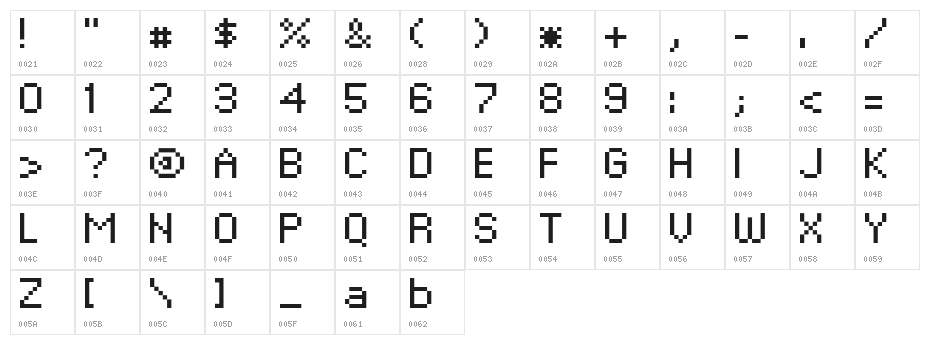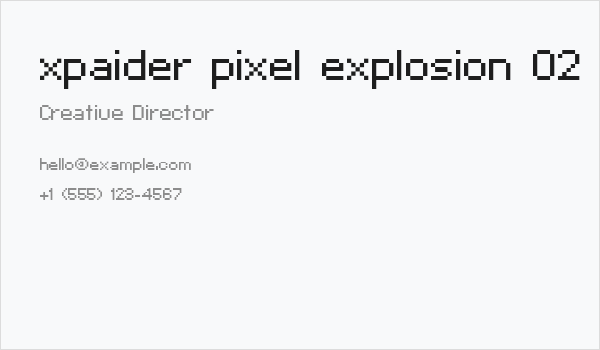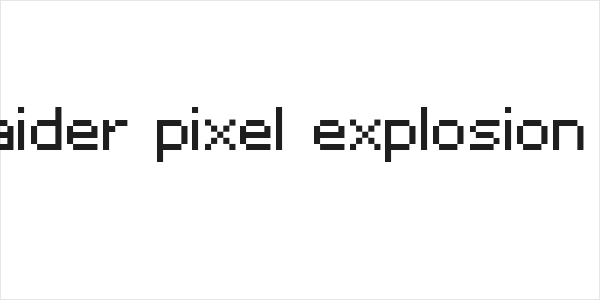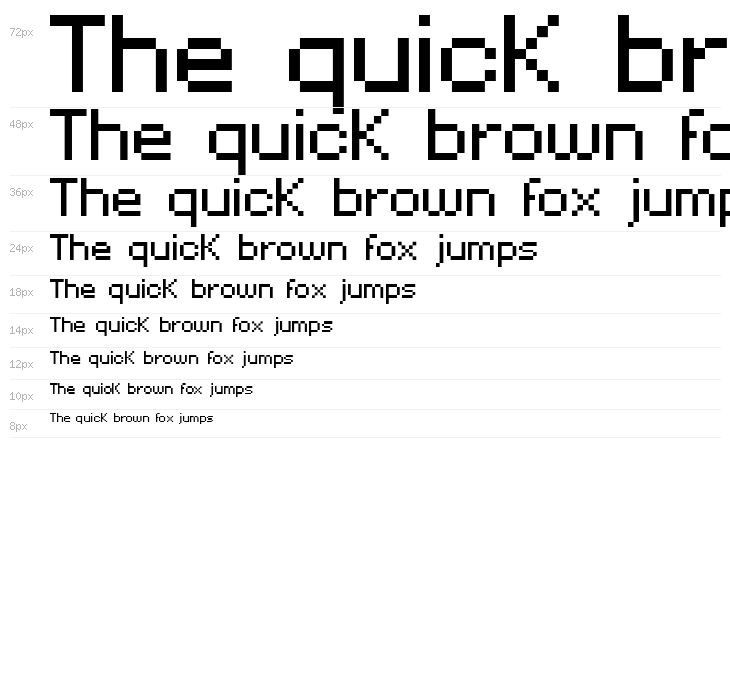
xpaider pixel explosion 02 Font
xpaider pixel explosion 02 Description
This font features a distinct pixelated design, reminiscent of classic video game graphics. Each character is constructed with a grid-like precision, giving it a retro digital appearance. The uppercase and lowercase letters maintain a consistent blocky style, ensuring readability while preserving the nostalgic aesthetic. Numbers and special characters follow the same pixelated pattern, making them easily recognizable and cohesive with the overall design. This font is perfect for projects that aim to evoke a sense of nostalgia or pay homage to early digital art and gaming.
| Use Case | Logos, Headlines, Digital Art |
| Proposed Projects | Ideal for video game design, retro-themed posters, digital art projects, and nostalgic branding. |